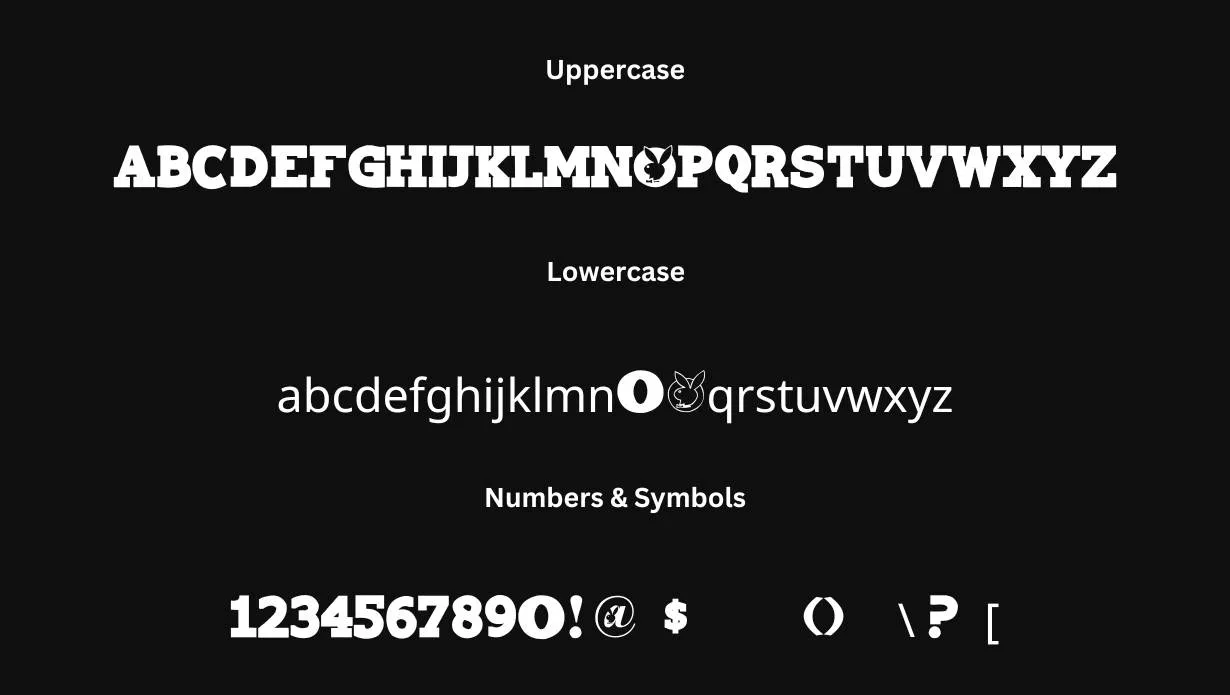
Playboy Font is a classic and sophisticated typeface that embodies the luxurious and seductive aesthetic of the iconic Playboy brand. With its sleek lines and elegant curves, Playboy Font adds a touch of glamour and sophistication to your designs.
Whether used for magazine layouts, branding materials, or promotional materials, Playboy Font exudes an aura of refinement and allure, making it a timeless choice for projects that aim to capture the essence of luxury and sensuality.
Playboy Font Family